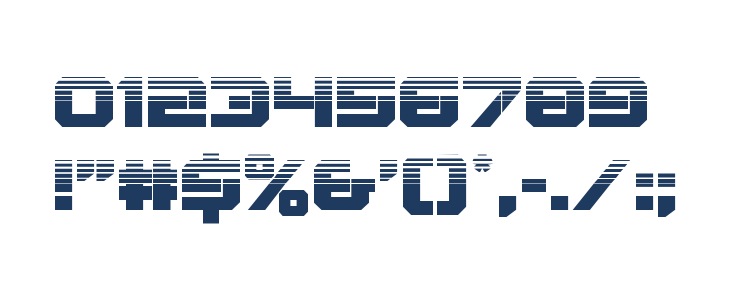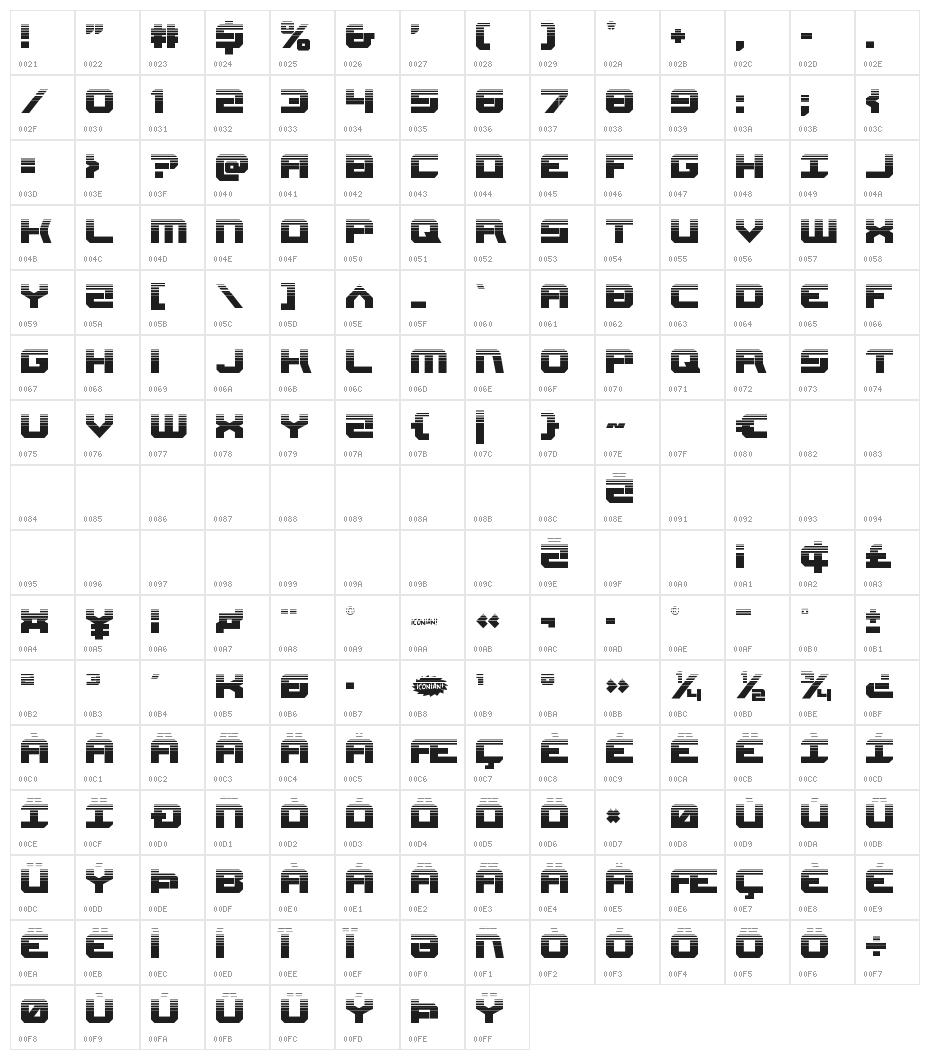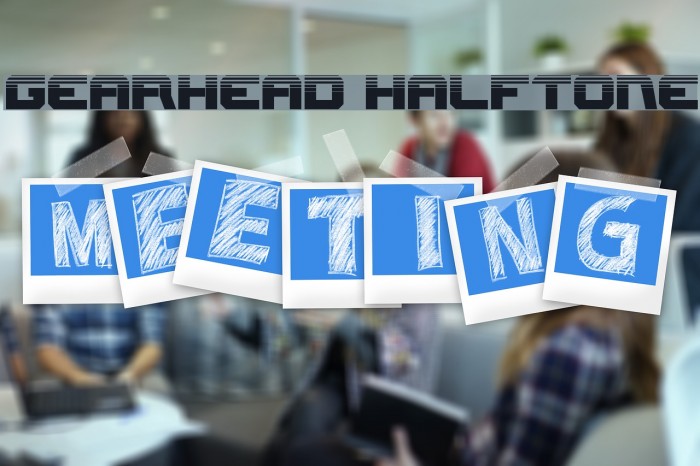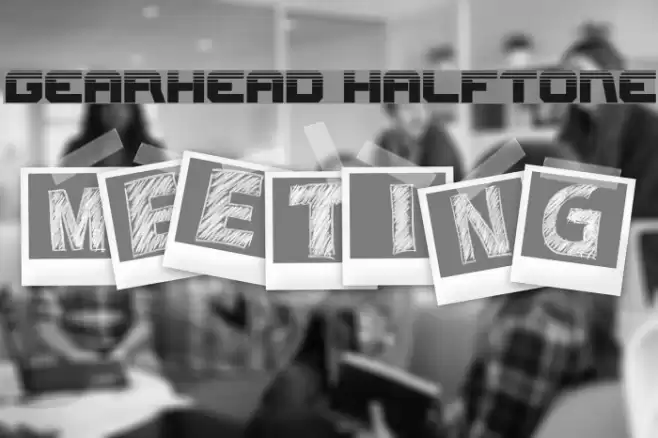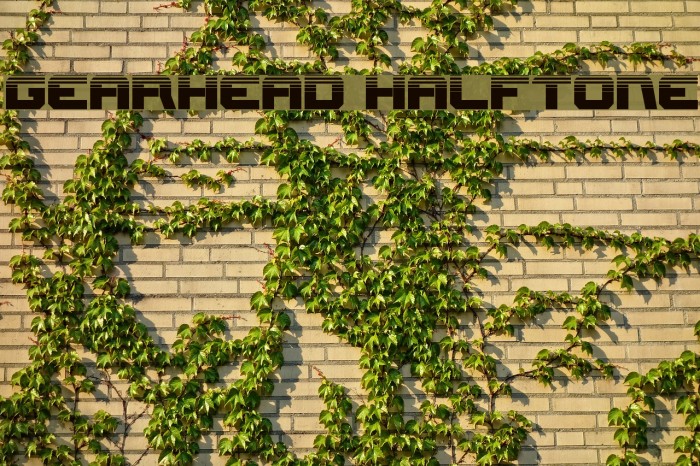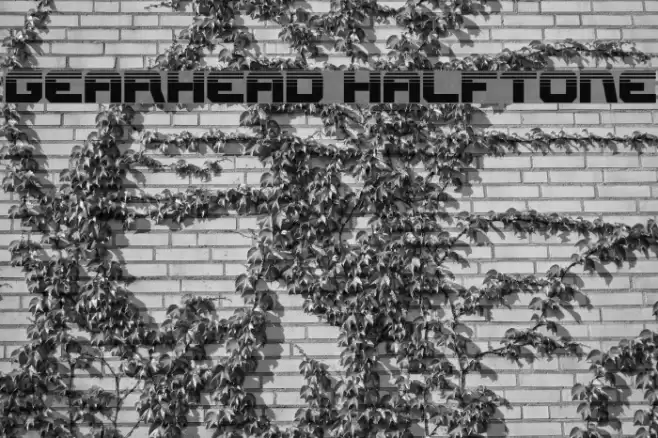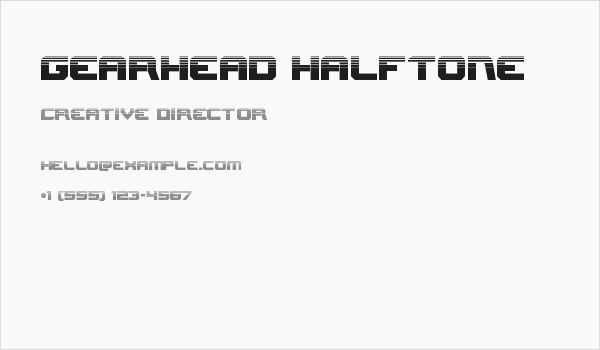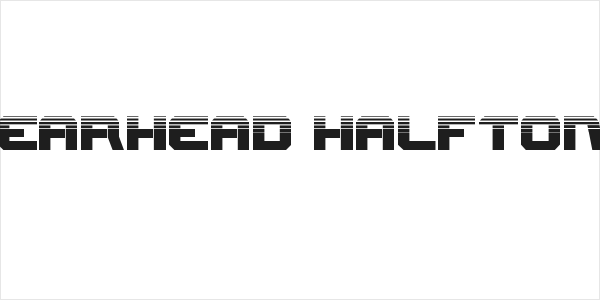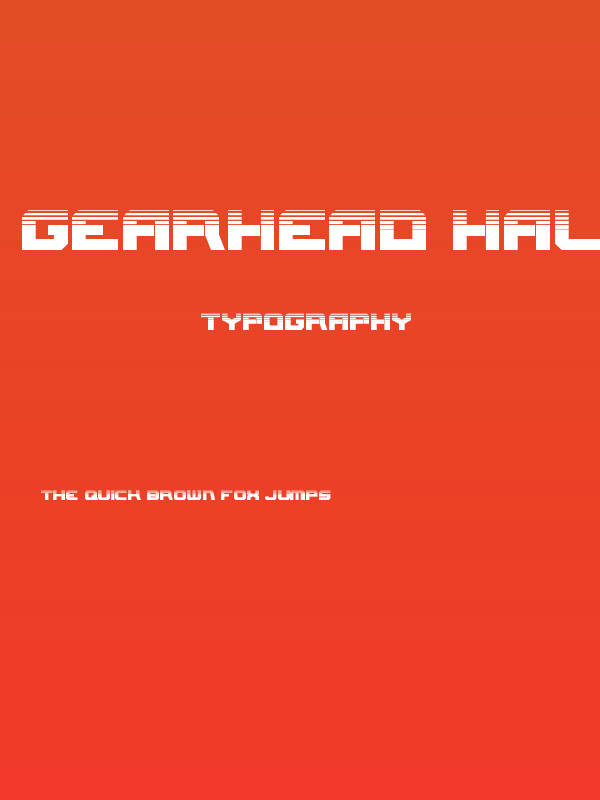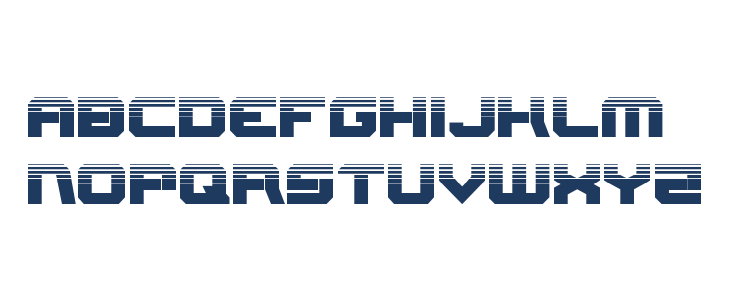
Gearhead Halftone Font
Gearhead Halftone Description
This font features a bold, futuristic design with a distinct halftone pattern that gives it a unique, mechanical appearance. The characters are constructed with a combination of solid and striped elements, creating a sense of movement and depth. The uppercase letters are particularly striking, with angular shapes and a strong geometric influence. The numbers and special characters maintain this bold style, ensuring consistency across all elements. The font's design is reminiscent of industrial and technological themes, making it ideal for projects that require a modern, edgy look.